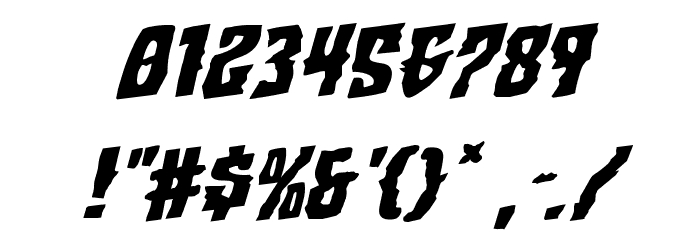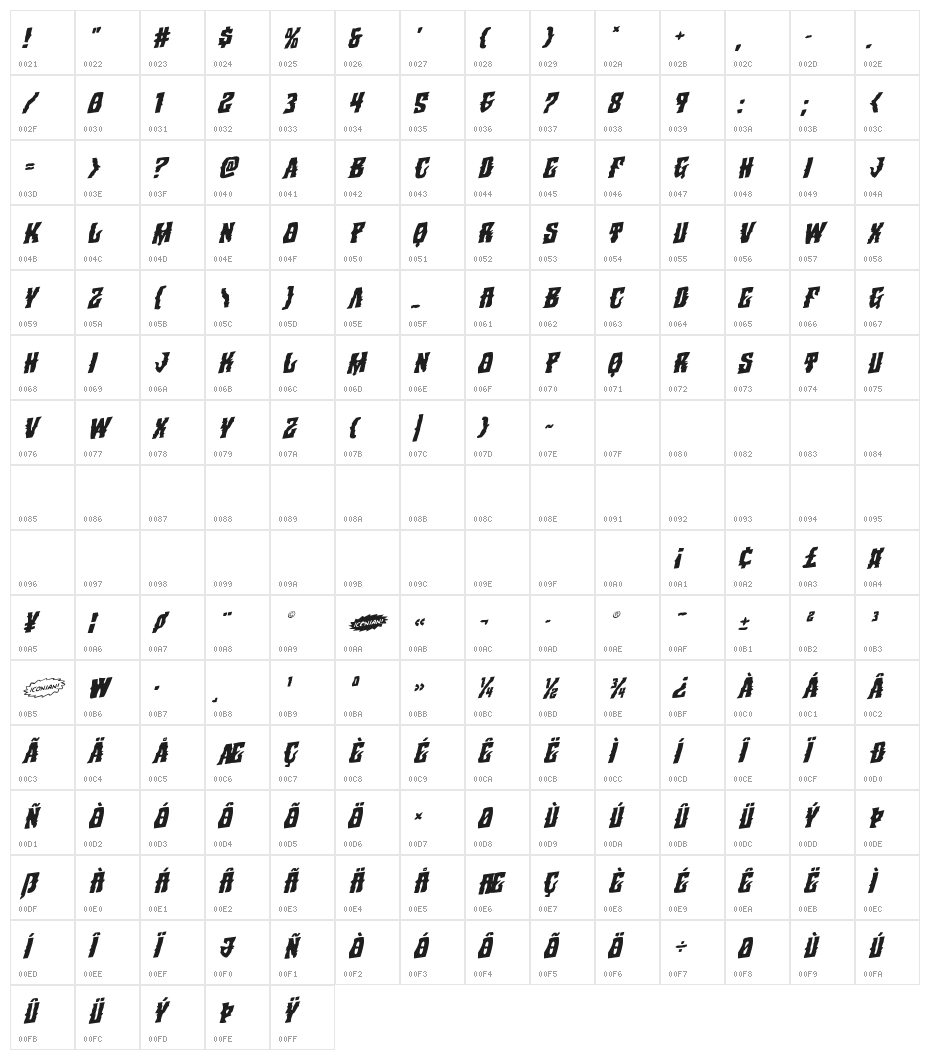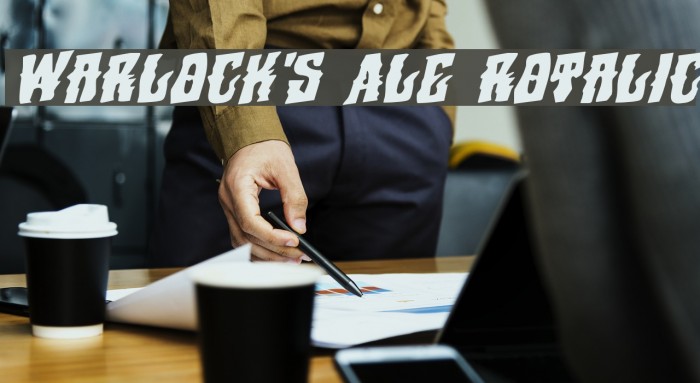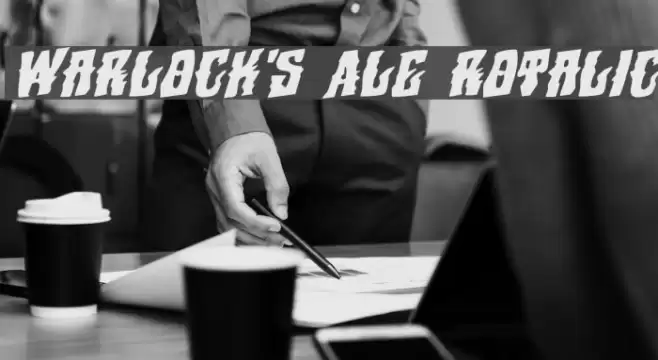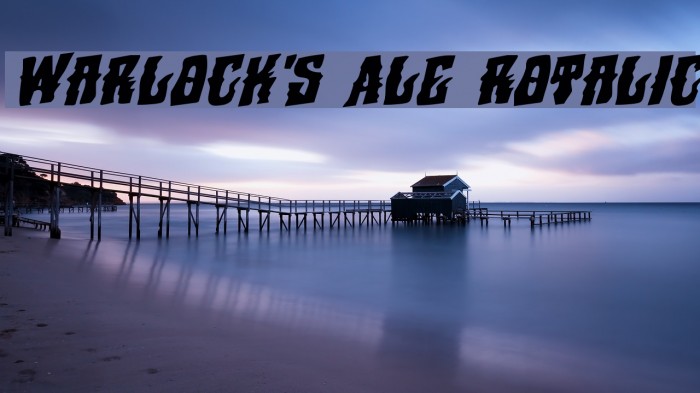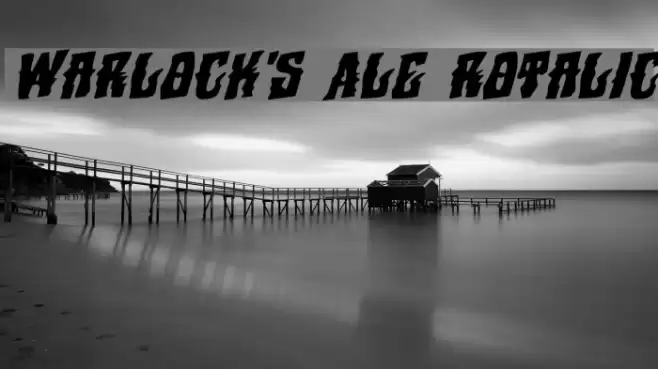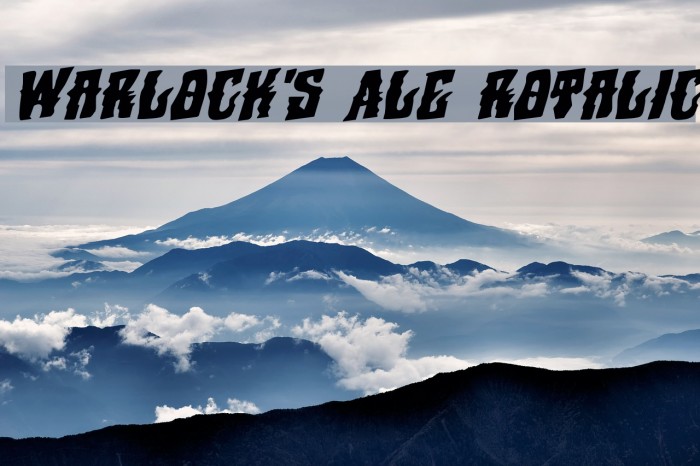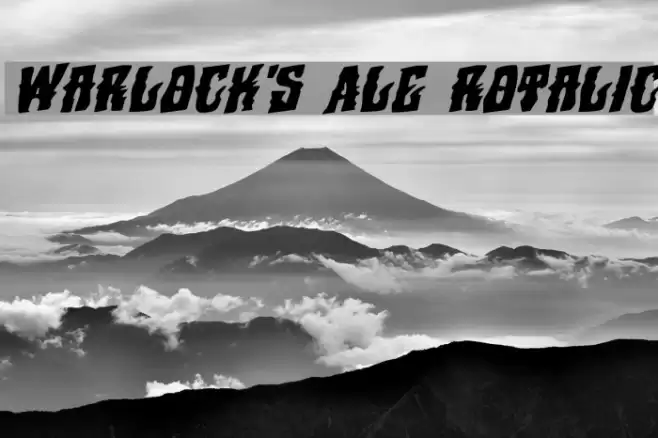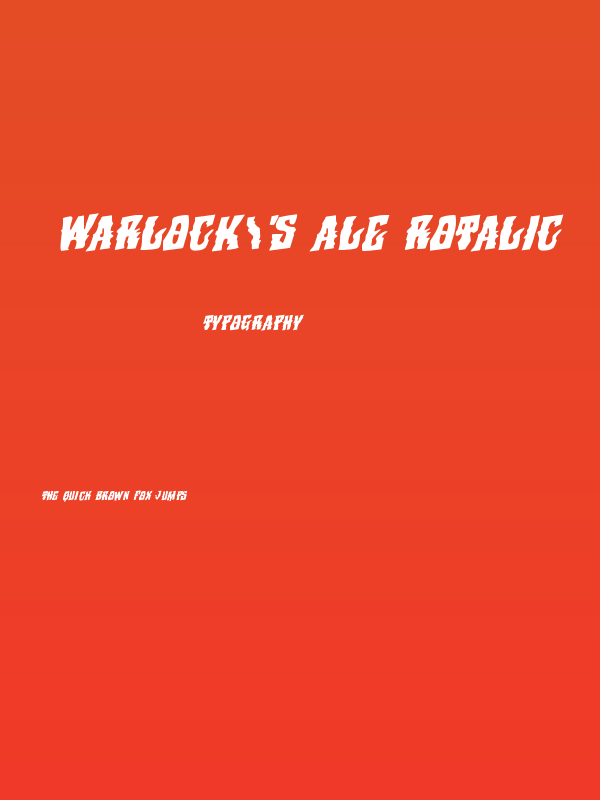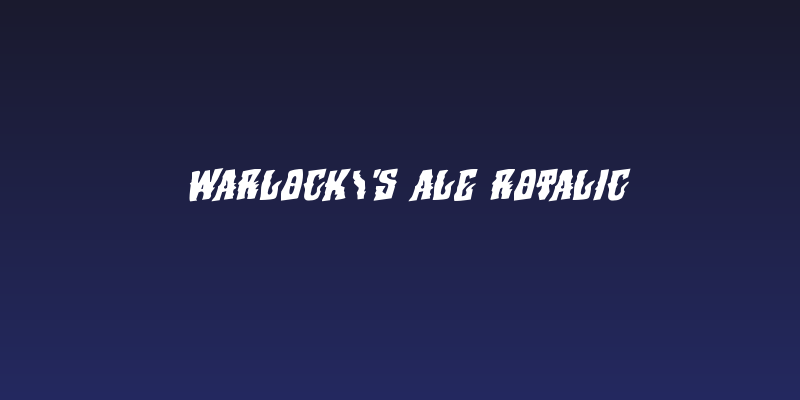
Warlock's Ale Rotalic Font
Warlock's Ale Rotalic Description
This font features a bold and dynamic design with jagged, sharp edges that give it a fierce and energetic appearance. The characters are heavily stylized, with an aggressive slant that adds a sense of motion and intensity. The uppercase and lowercase letters maintain a consistent style, with exaggerated serifs and angular cuts that create a unique and eye-catching look. The numbers and special characters follow the same design principles, ensuring uniformity across all glyphs. This font is perfect for projects that require a strong, impactful visual presence.